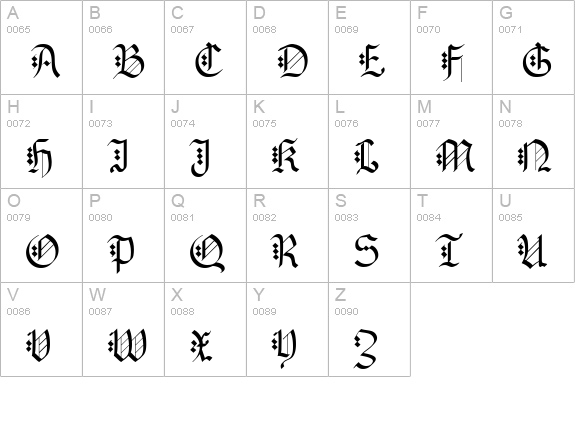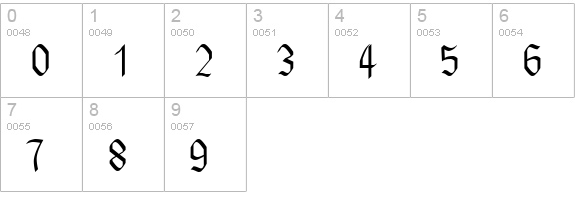
The Albert Betenbuch font is a unique and stylish typeface that exudes elegance and sophistication. With its sleek and modern design, this font is perfect for a wide range of projects, from branding to editorial design. The carefully crafted letterforms and intricate details make the Albert Betenbuch font stand out from the crowd. What's even better is that the Albert Betenbuch font is completely free to download at FontsMarket.com. Yes, you read that right – you can get your hands on this stunning font without spending a dime. So why wait? Head over to FontsMarket.com today and download the Albert Betenbuch font to elevate your designs to the next level.